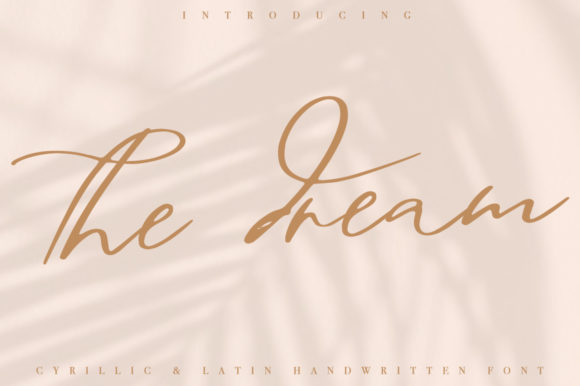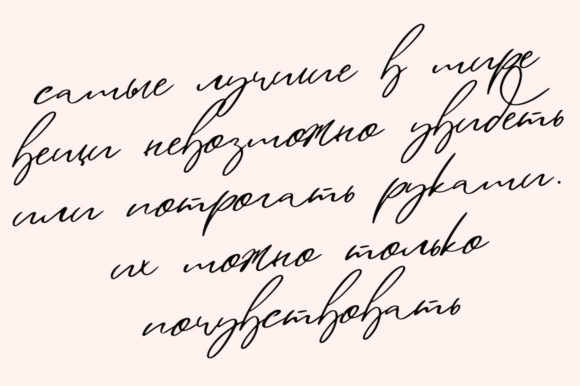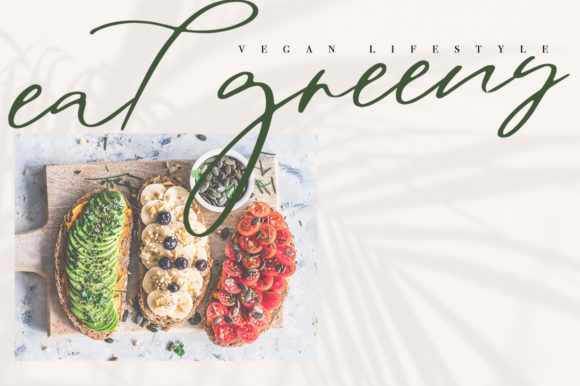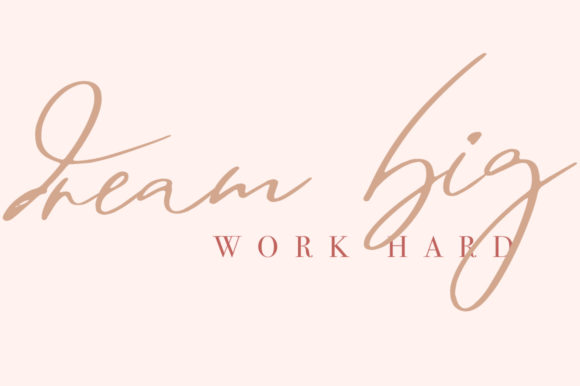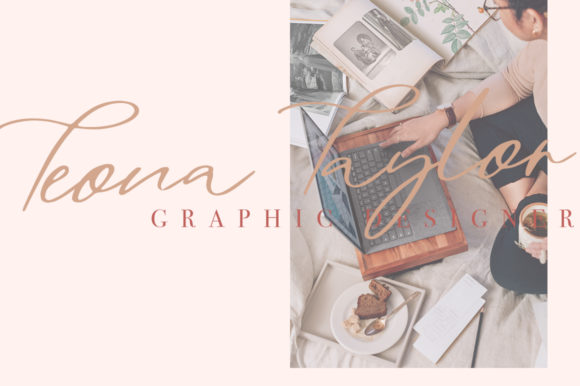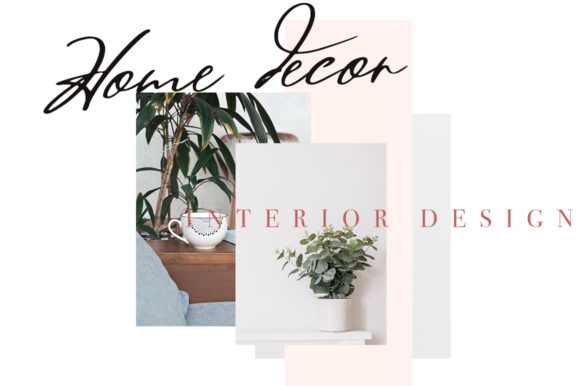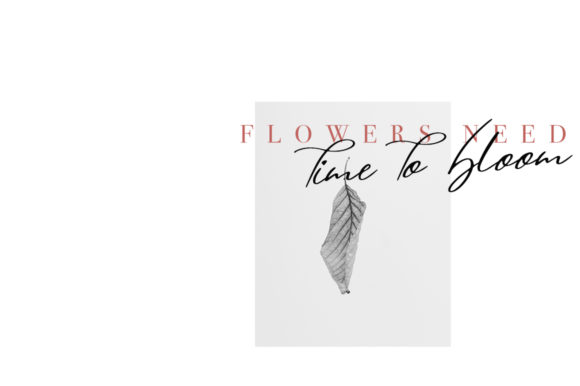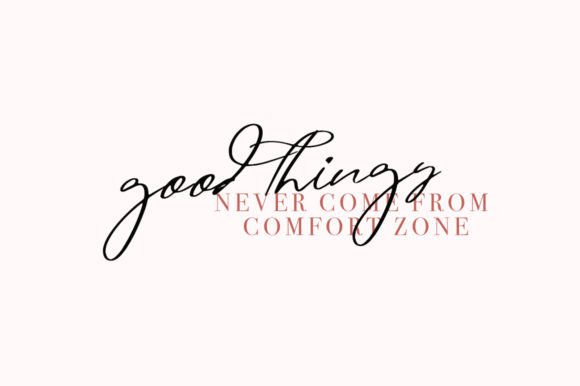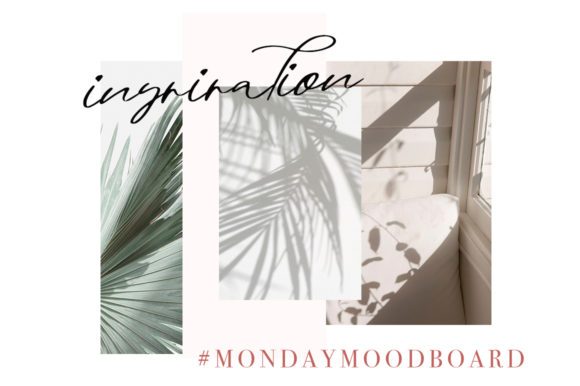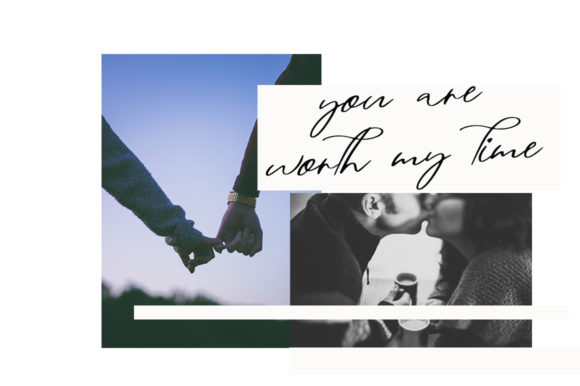
The Dream Font
About The Dream Font
The Dream is a beautiful, flowing handwritten font, designed to add a timeless touch to your projects. Fall in love with its incredibly distinct and elegant style and use it to create spectacular designs!